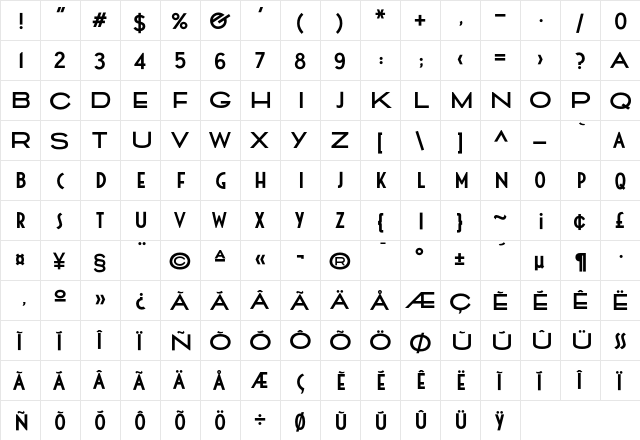
CassandraEF Bold
Design Context for CassandraEF Typeface
CassandraEF offers clean, dependable letterforms without strong stylistic allegiance, making it a practical choice for designers who need flexibility. The heavy weight commands attention and anchors typographic hierarchies.